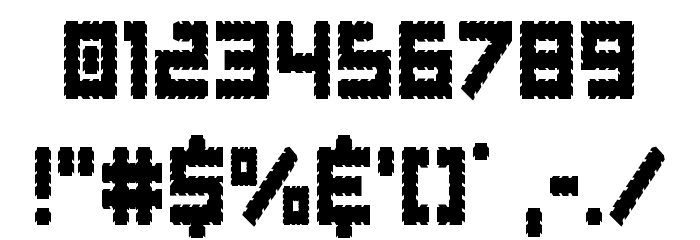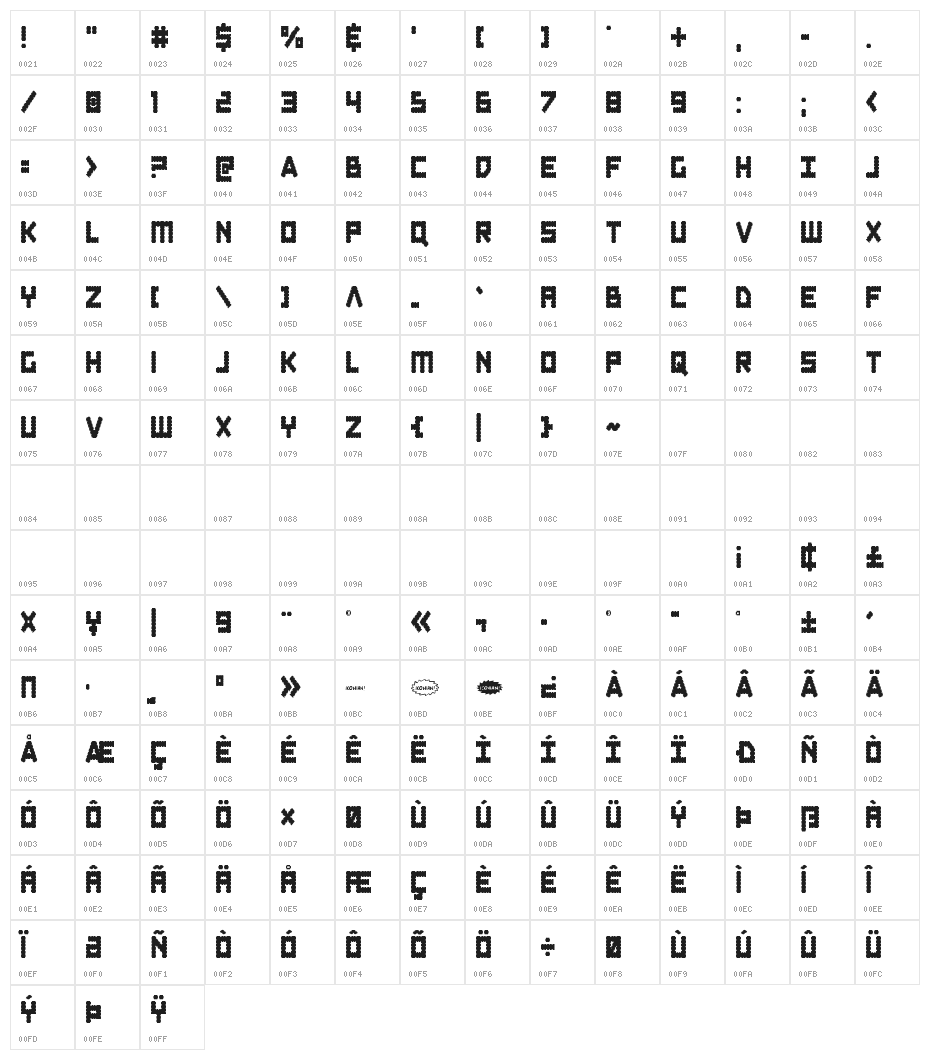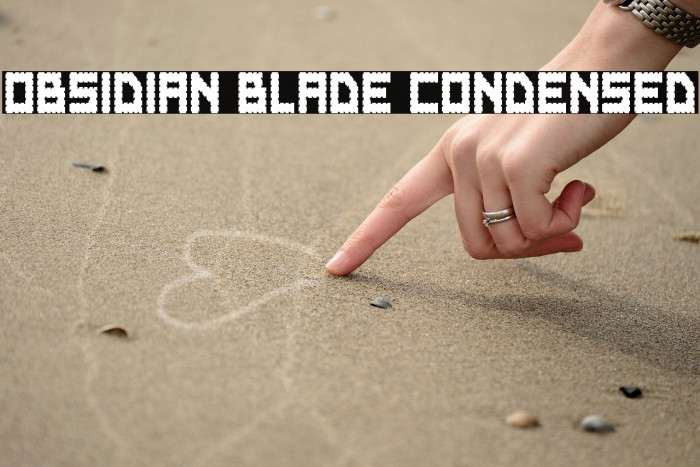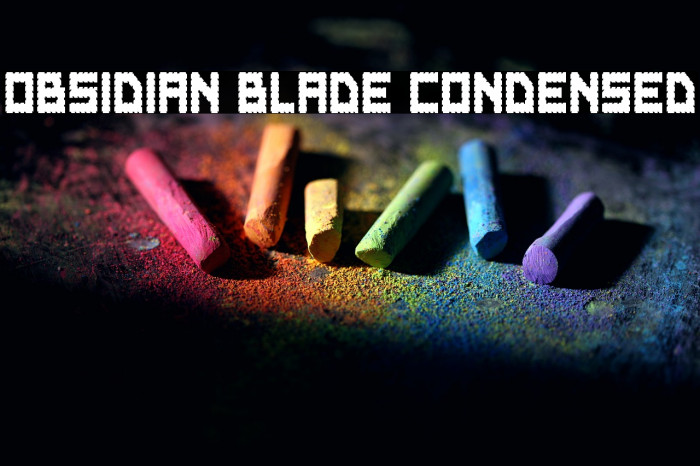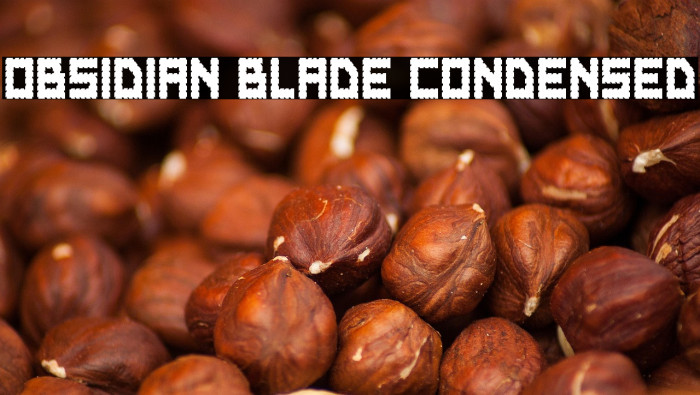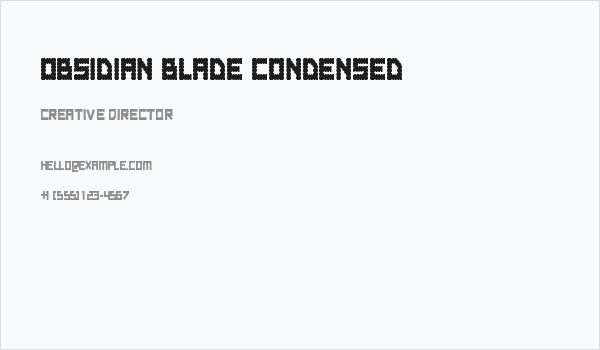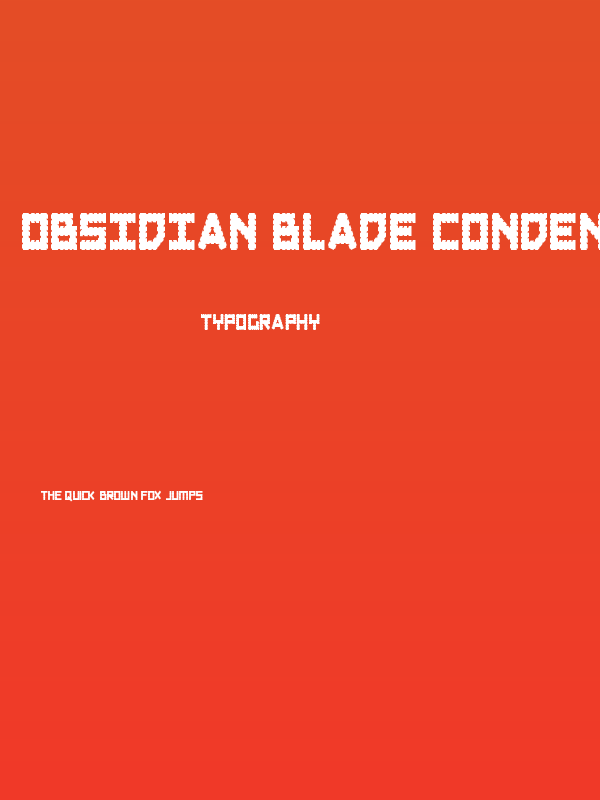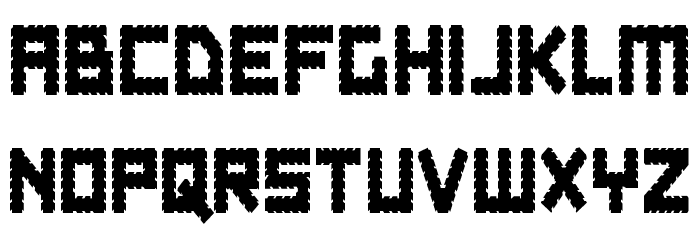
Obsidian Blade Condensed Font
Obsidian Blade Condensed Description
This font features a bold, jagged design with sharp, angular edges that resemble the teeth of a saw blade. The characters are condensed, giving them a compact appearance, while maintaining a strong visual impact. The uppercase and lowercase letters share a consistent style, with the uppercase being slightly more pronounced. Numbers and special characters are designed with the same angular, edgy aesthetic, ensuring uniformity across all glyphs. This font's unique style makes it stand out, offering a modern and aggressive look that is both eye-catching and memorable.